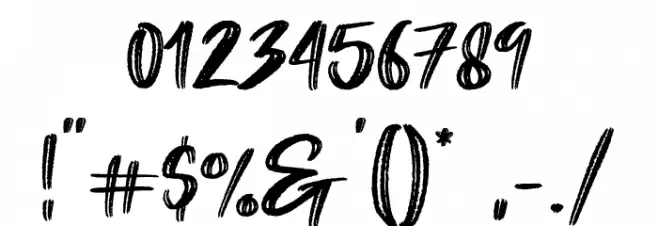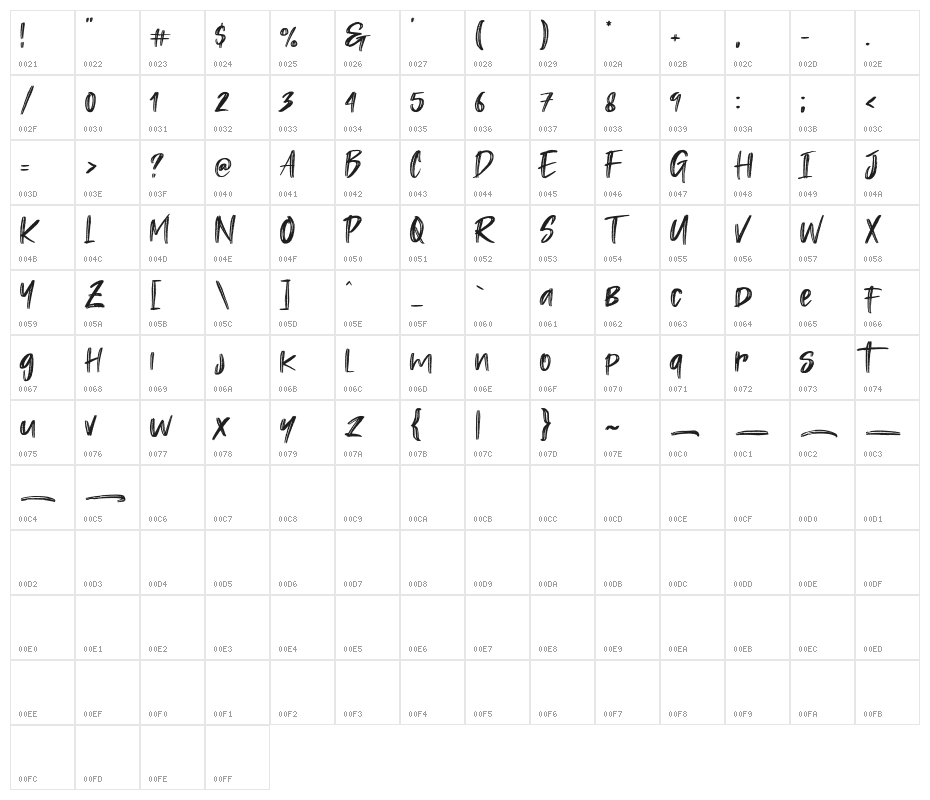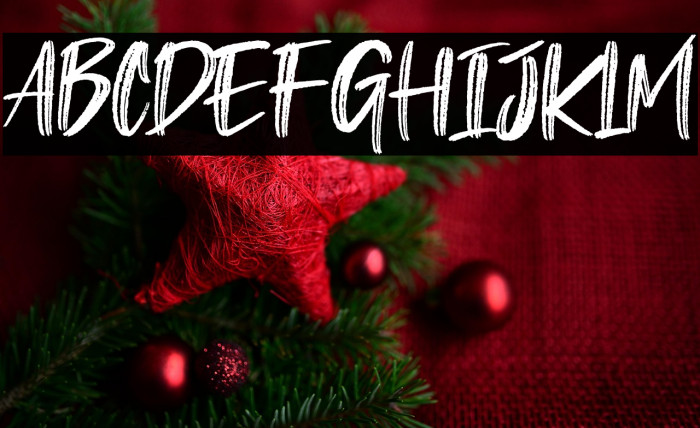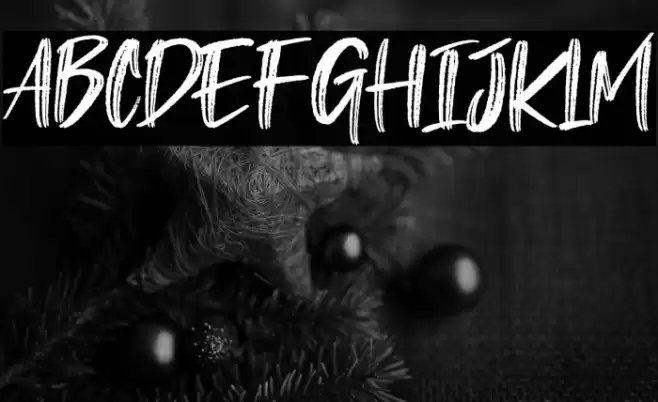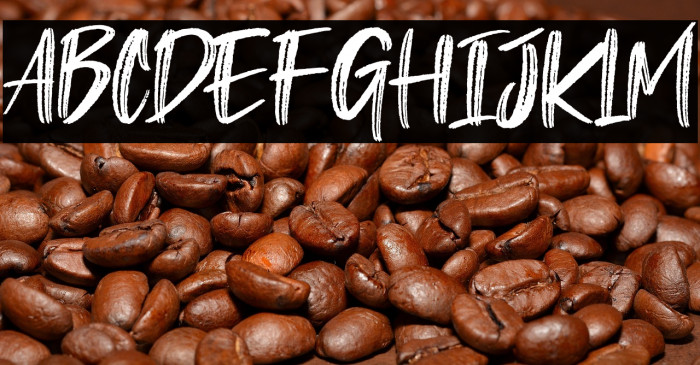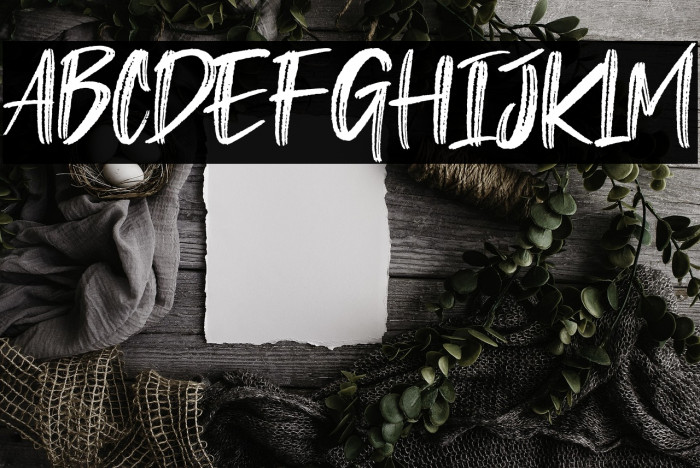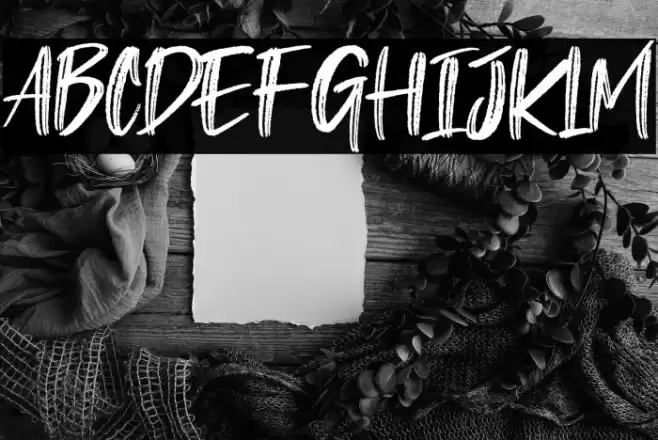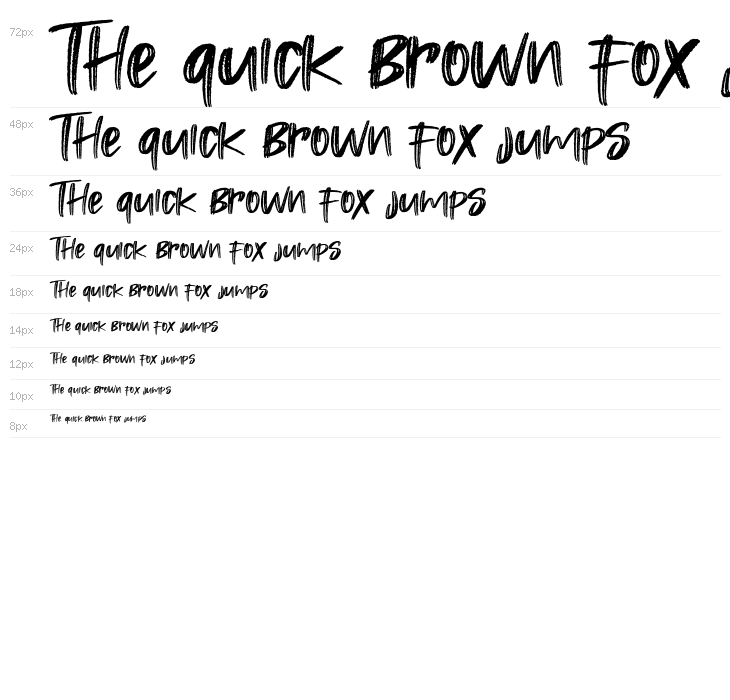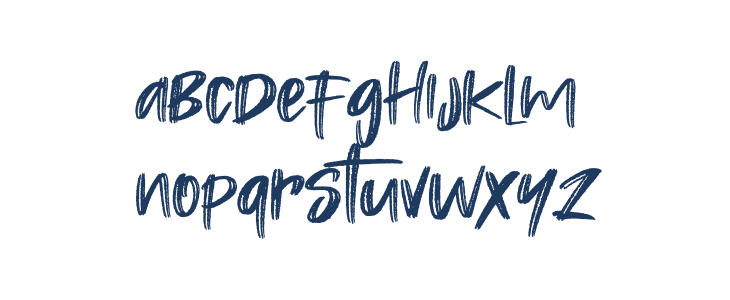
Rastazm Font
Rastazm Description
This font features a bold, expressive handwritten style with a brush-like texture. The strokes are dynamic and energetic, giving a sense of movement and creativity. The uppercase and lowercase letters maintain a consistent style, with slightly exaggerated curves and angles that add to the font's artistic flair. Numbers and special characters are equally bold, maintaining the same brush-stroke aesthetic. The overall appearance is informal yet impactful, making it suitable for projects that require a personal touch or a statement-making design.
| Proposed Projects | Ideal for branding, posters, social media graphics, and creative projects that require a personal and artistic touch. |